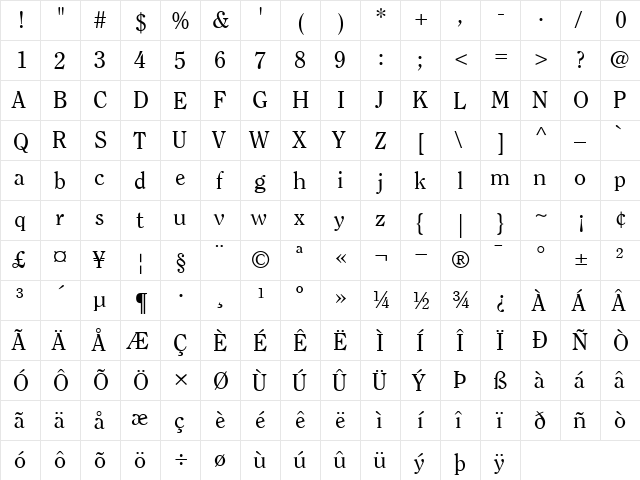
ITCClearface Roman Font Preview
ITCClearface Roman
Design Context for ITCClearface Typeface
ITCClearface offers clean, dependable letterforms without strong stylistic allegiance, making it a practical choice for designers who need flexibility.
Pro Tip: Pair ITCClearface with a font of contrasting weight or personality to build a more expressive typographic hierarchy.